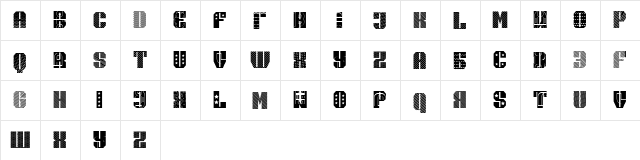
Moscowian Party Book Regular
Design Context for Moscowian Party Book Typeface
Moscowian Party Book is a composed and adaptable typeface that performs quietly and consistently across a wide range of design contexts.